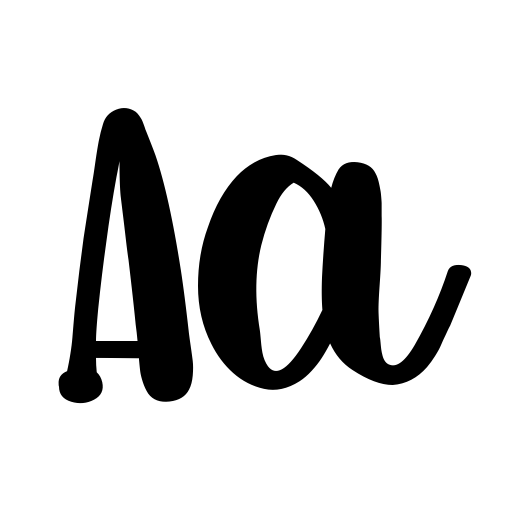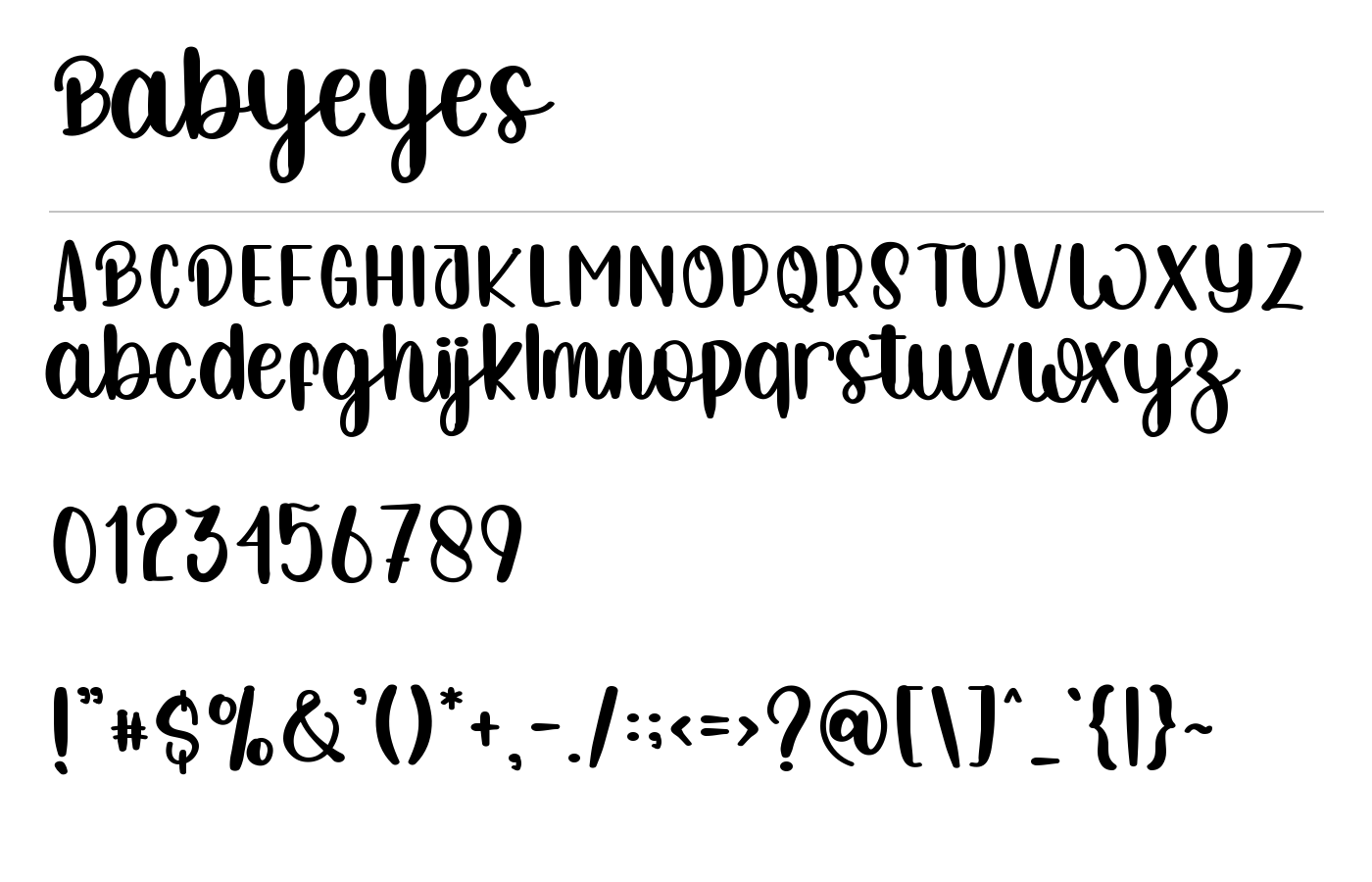
Babyeyes is a lively, playful script font with a hand-drawn feel, featuring smooth, rounded strokes and moderate contrast that gives it a warm, friendly personality. Its tall x-height and whimsical letterforms, including unique loops and curls, make it perfect for casual branding, children’s products, and creative headlines where a fun and approachable style is needed. This font shines in settings that want to convey charm and cheerfulness, adding a personal touch without sacrificing readability.
Babyeyes Font